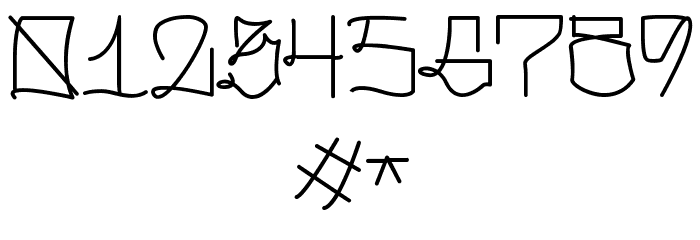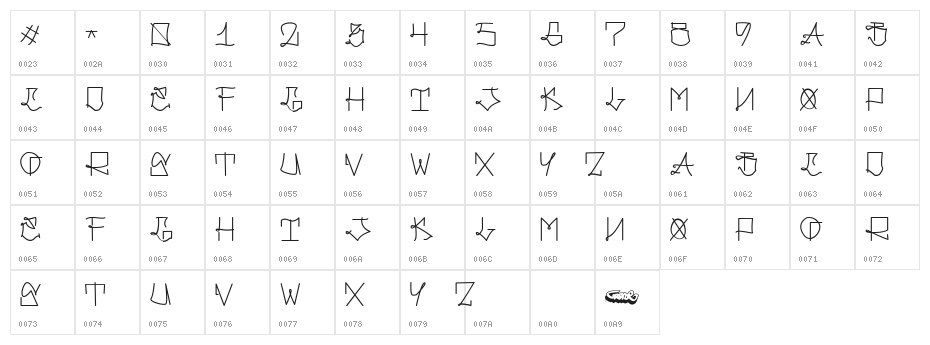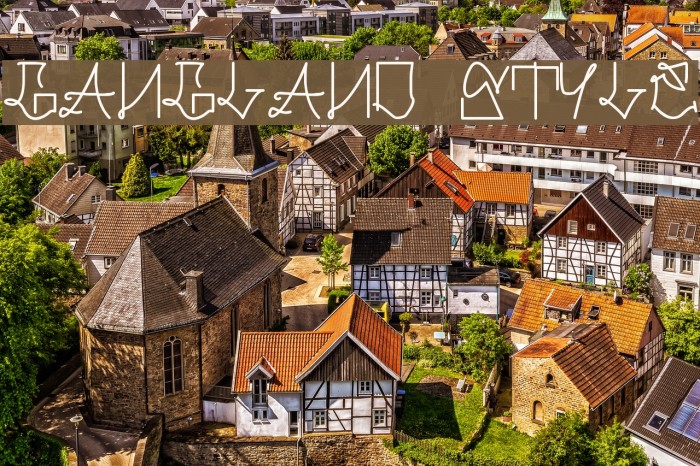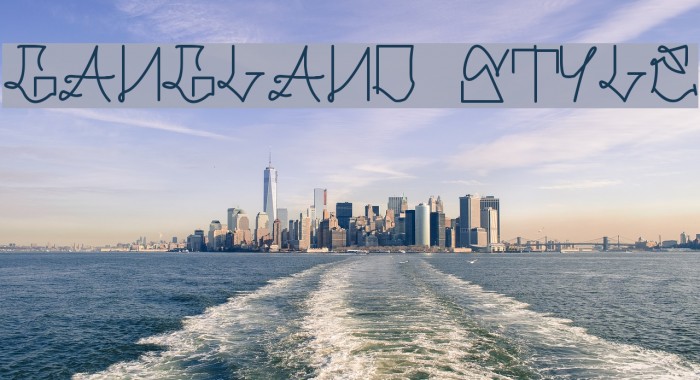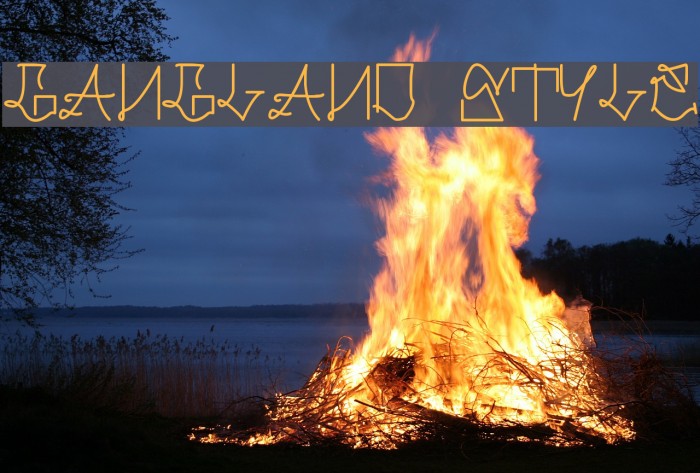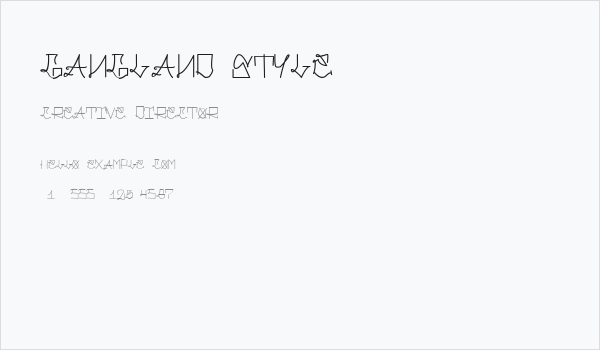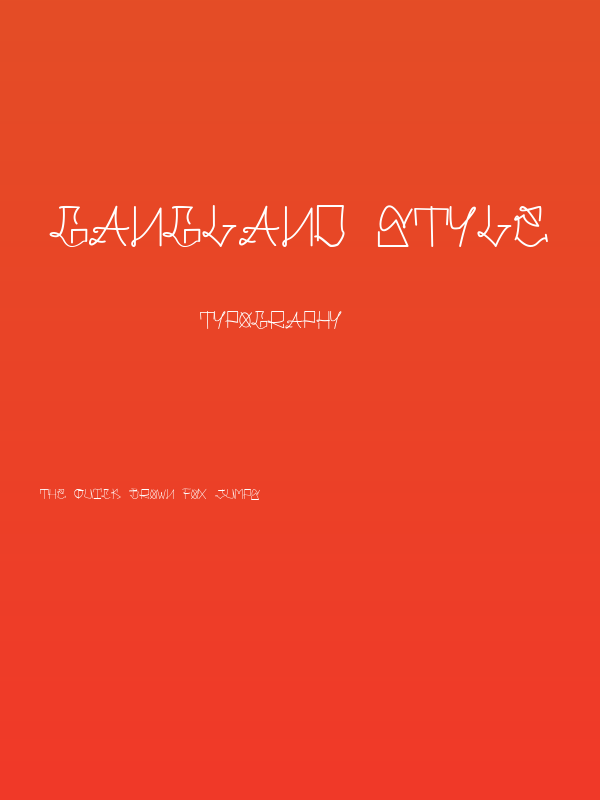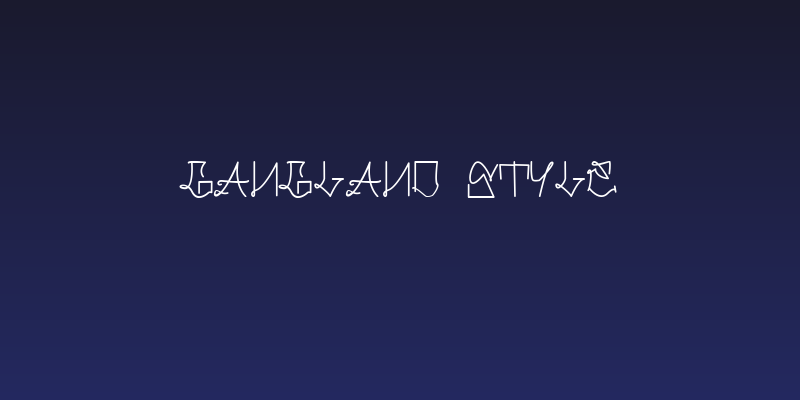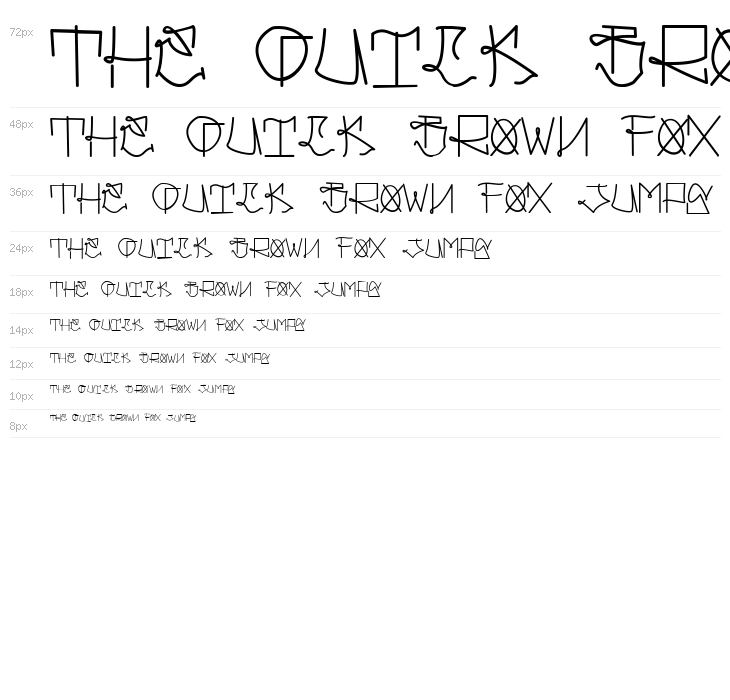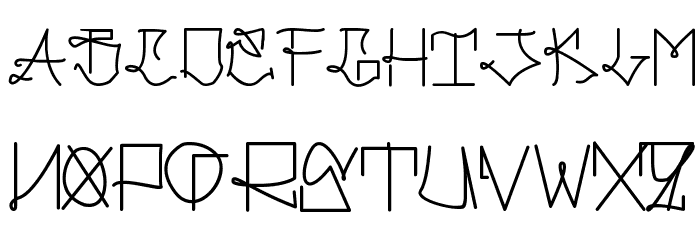
Gangland Style Font
Gangland Style Description
This font features a highly decorative and intricate design, characterized by its unique, gangland-inspired style. Each character is crafted with elaborate loops and angular lines, creating a sense of mystery and edginess. The uppercase and lowercase letters maintain a consistent theme, with each character exhibiting a distinct personality. Numbers and special characters are equally stylized, ensuring a cohesive look across all elements. The font's artistic flair makes it suitable for projects that require a bold and unconventional aesthetic.
| Use Case | Logos, Posters, Branding |
| Proposed Projects | Ideal for tattoo designs, album covers, streetwear branding, and posters that require a bold, edgy look. |